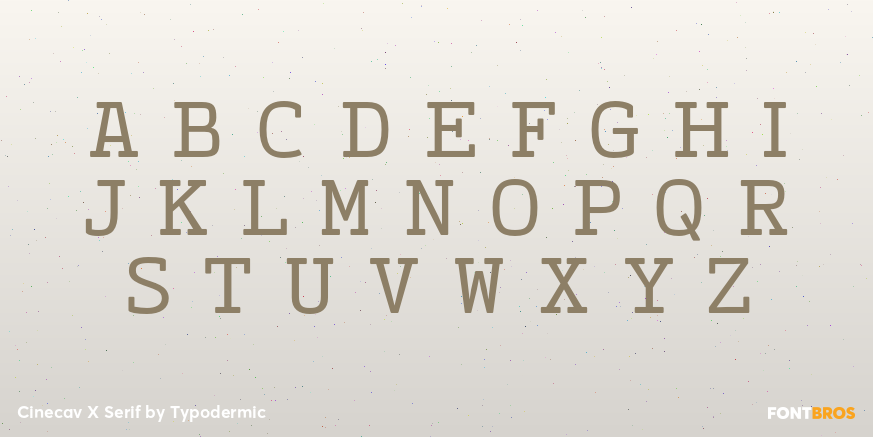
Cinecav X Serif
Buy NowCinecav X Serif adds sturdy, clearly drawn serifs to the family’s caption-oriented proportions. The construction gives subtitles a more literary or editorial voice without abandoning the open spacing and screen legibility developed for changing video backgrounds.
Use Serif for documentaries, historical programs, recorded lectures, literary adaptations, museum media, archival film, and language-learning content where captions should feel distinct from a neutral interface sans. Its italic provides a related voice for quotations, narration, emphasis, and translated on-screen text.